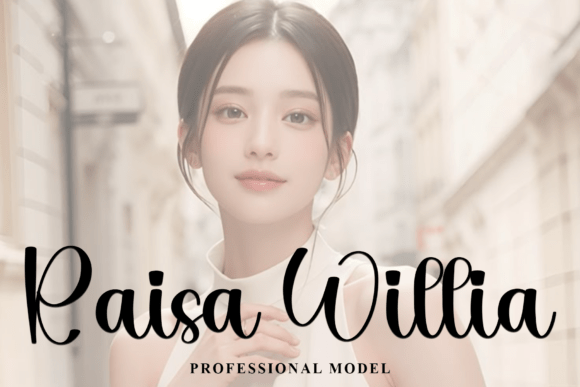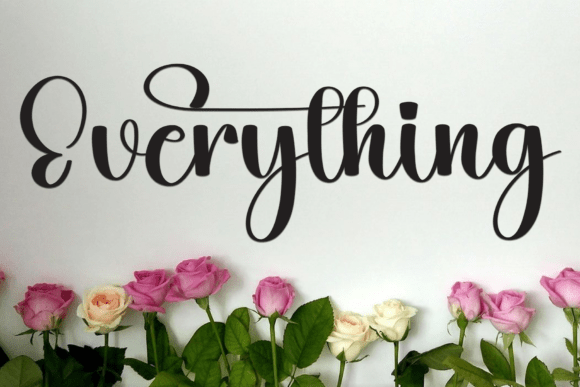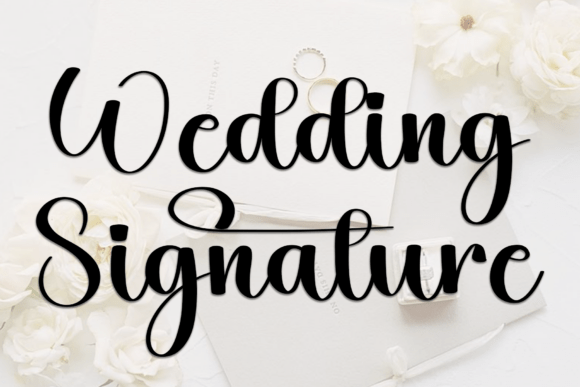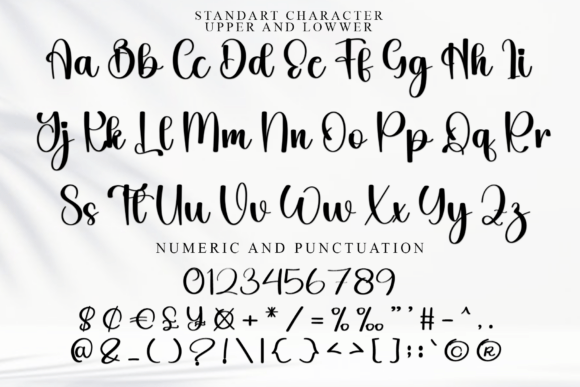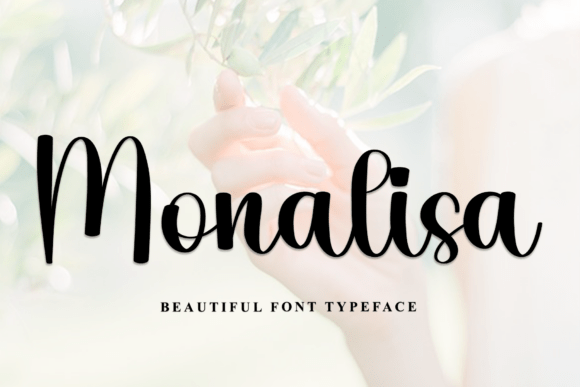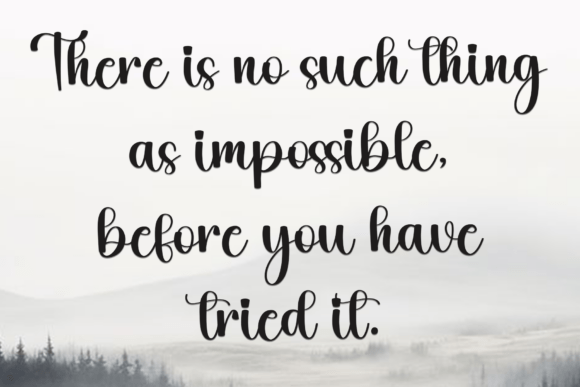
Diligent Font: Elevate Your Designs with a Unique and Versatile Typeface
In the world of design, a font can make all the difference in creating a lasting impression. If you’re a designer, crafter, or creative looking for a beautiful and eye-catching font to elevate your projects, look no further than Diligent Font. This stunning typeface is designed with a soft, unique touch that sets it apart from other fonts, making it perfect for a wide range of design applications.
A Distinctive and Meaningful Font
Diligent Font boasts distinctive strokes that give it a special character, making it both meaningful and versatile for future use. Its unique design ensures that your designs stand out from the crowd, while its soft and approachable feel makes it relatable to a wide range of audiences. Whether you’re working on a design project, craft, or other creative work, Diligent Font is the perfect choice.
A World of Creative Possibilities
One of the best things about Diligent Font is its versatility. With a wide range of characters, you can use it to create a variety of designs, from elegant and sophisticated to playful and whimsical. The font is perfect for:
- Design projects: Use Diligent Font to create stunning logos, brochures, posters, and more.
- Crafts: Add a personal touch to your handmade crafts, such as cards, invitations, and scrapbook pages.
- Creative works: Use Diligent Font to add a unique touch to your artwork, illustrations, and digital creations.
The Benefits of Using Diligent Font
So why choose Diligent Font for your design projects? Here are just a few benefits:
- Unique and eye-catching: Diligent Font is sure to grab attention and make your designs stand out.
- Versatile: Use Diligent Font for a wide range of design projects, crafts, and creative works.
- Natural and approachable: Diligent Font has a soft and natural feel that makes it relatable to a wide range of audiences.
Tips for Using Diligent Font
To get the most out of Diligent Font, here are a few tips:
- Experiment with different sizes and colors: Diligent Font looks great in a variety of sizes and colors, so don’t be afraid to experiment and find the perfect combination for your design.
- Pair it with other fonts: Diligent Font pairs well with other fonts, so try combining it with a bold font for headings or a script font for added elegance.
- Use it consistently: To create a cohesive look, use Diligent Font consistently throughout your design.